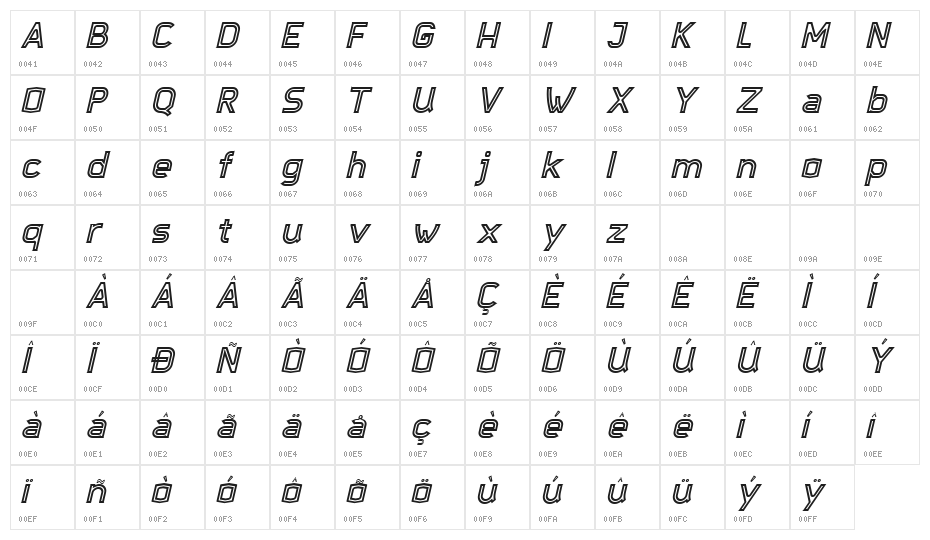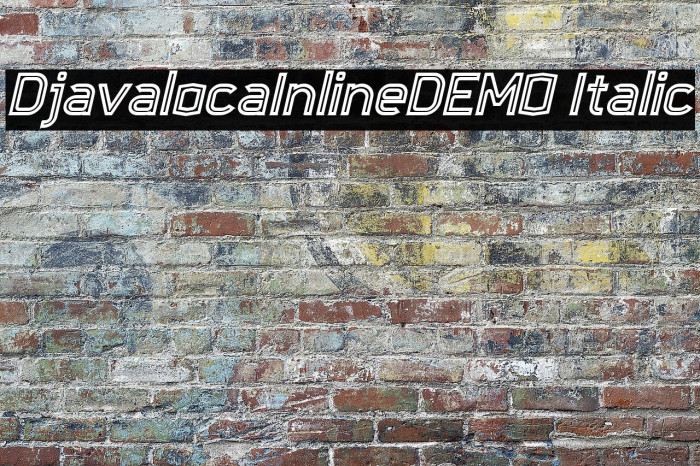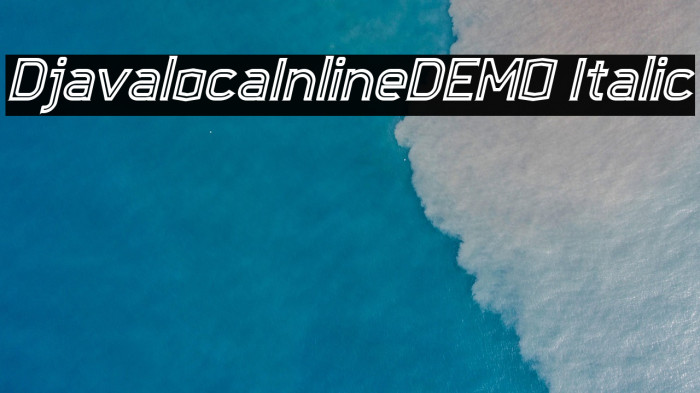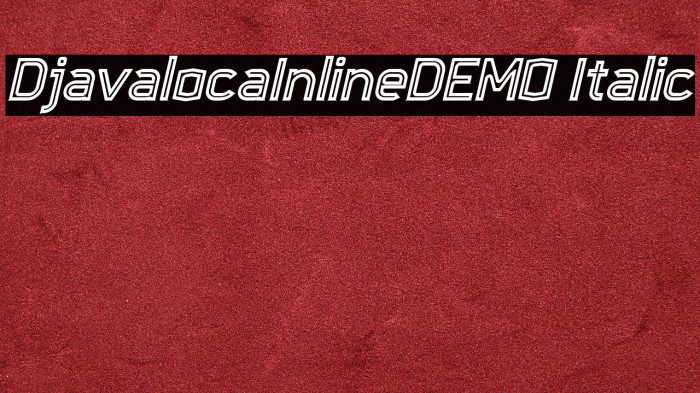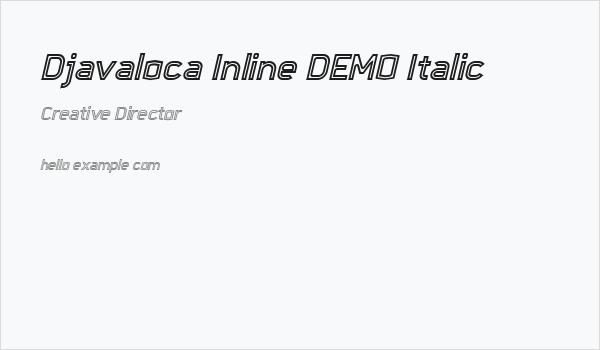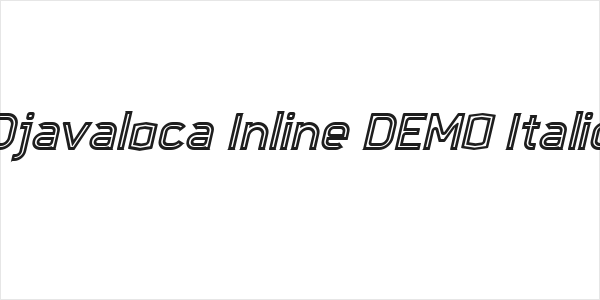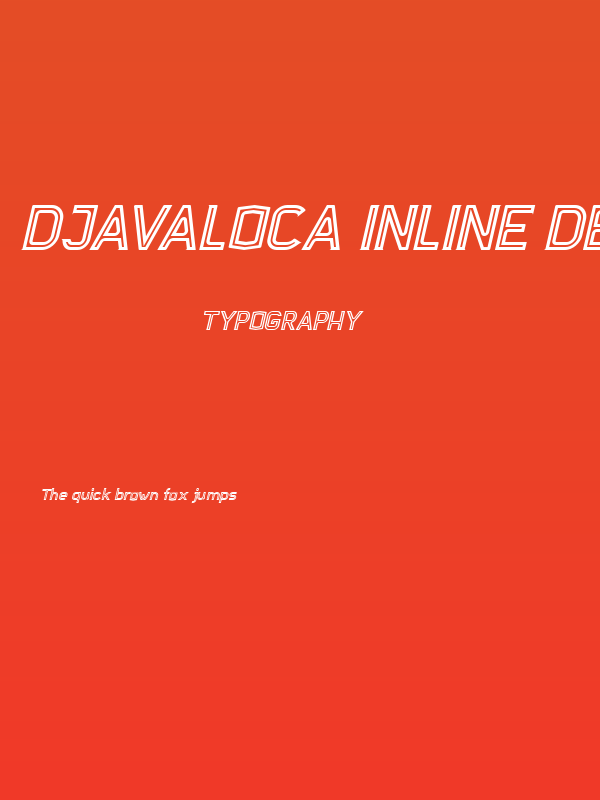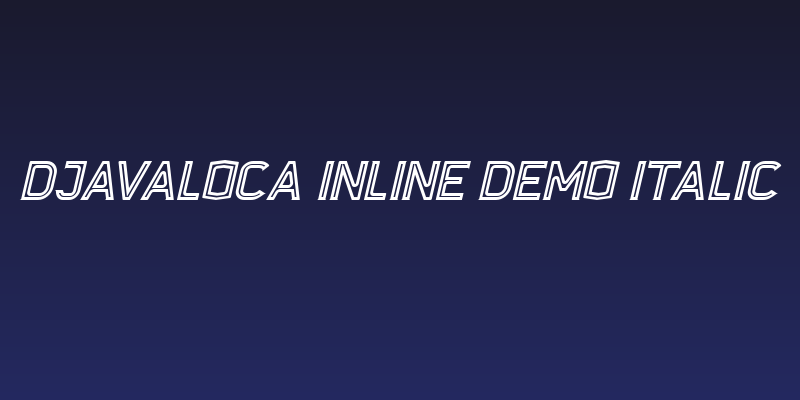
Djavaloca-Inline-DEMO Italic Font
Djavaloca-Inline-DEMO Italic Description
This font features a modern, inline design with a distinct italic slant, giving it a dynamic and forward-moving appearance. The uppercase and lowercase letters maintain a consistent style, with clean lines and a geometric structure. The inline detail adds a layer of depth and sophistication, making it stand out in various design contexts. The characters are well-spaced, ensuring readability while maintaining a unique aesthetic. This font is ideal for projects that require a contemporary and stylish look, such as branding, advertising, and digital media.
| Proposed Projects | Ideal for branding, advertising, digital media, and modern design projects. |